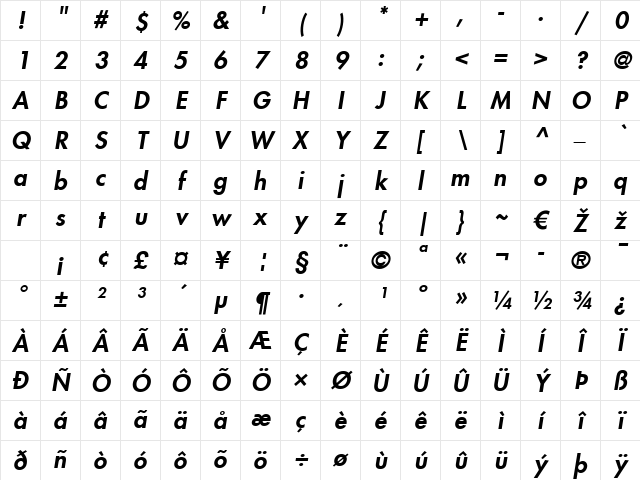
Futura LT Medium Bold Italic Free Font
Futura LT Medium Bold Italic
Complete Futura LT Medium Bold Italic glyph index. Displaying only characters natively supported by Futura LT Medium Bold Italic font.
Design Context for Futura LT Medium
Futura LT Medium has a distinctly futuristic character, with geometric precision and clean angles that feel at home in technology, gaming, and sci-fi contexts. The slanted form adds forward momentum and visual energy. Its bold stroke weight gives it real presence on the page.
Pro Tip: Try Futura LT Medium with generous letter-spacing in UI labels and navigation - the geometric forms benefit from room to breathe.